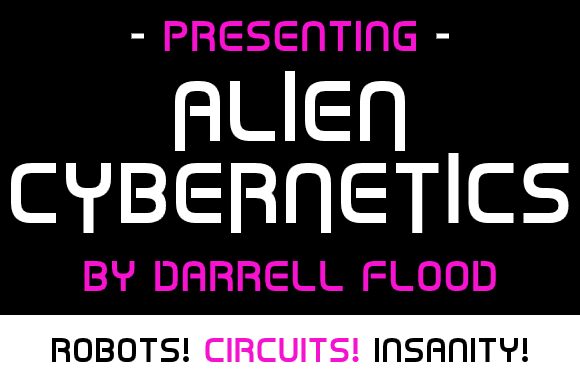
ALIEN CYBERNETICS Italic
Alien Cybernetics Italic font is a sleek and futuristic display font from Hawtpixel. Tech-inspired, its styles are well-suited for modern aesthetics and sci-fi projects. Perfect curves over geometric shapes followed by clean lines make the typeface amazing for futuristic projects. Effective in both large-size headings and smaller-size paragraphs.
Title design, packaging, body text, videos, video games, banners, labels, logos, books… These are only some of the areas where this free techno display font will work. Choose it to stand out wherever it appears!